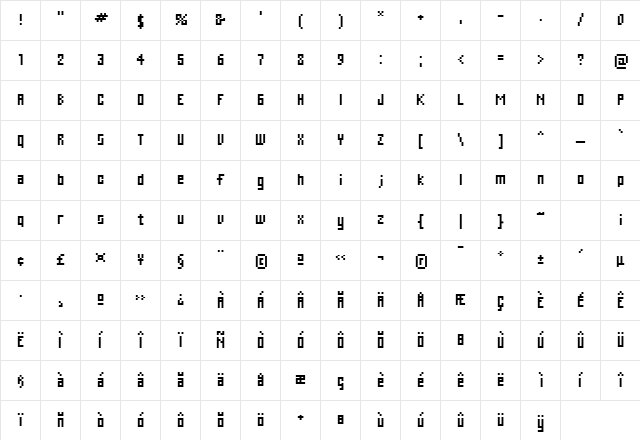
C Web Large
Design Context for C Web Typeface
C Web takes a measured approach to typography — its balanced proportions and neutral character make it a reliable workhorse for both digital and print work.